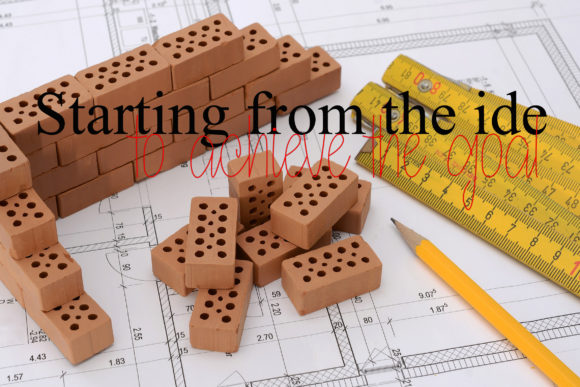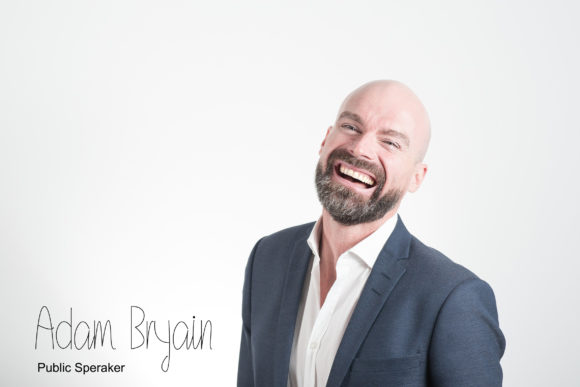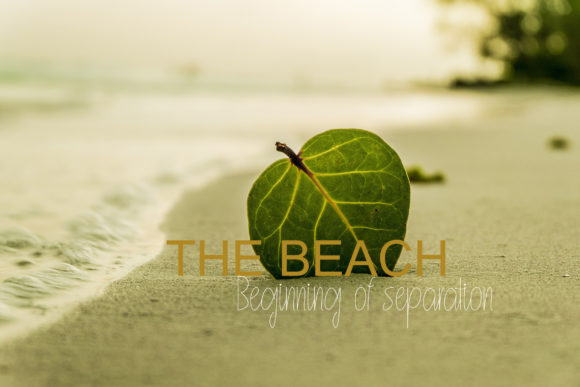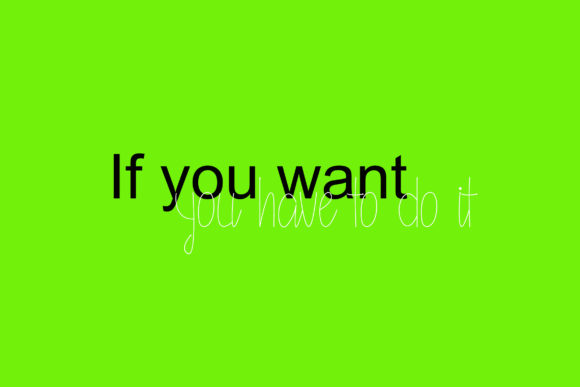
Introduction to Jeconia Font
As a designer, there’s nothing quite like that moment when a project starts to come together – the spark of creativity ignites, and you know you’re onto something special. For me, it was when I stumbled upon the Jeconia Font, a beautiful handwritten font that added that perfect touch of elegance to my design. Its high-quality lines and subtle flair made my creative project stand out in a way I never thought possible.
What makes Jeconia Font so valuable for designers like you and me is its versatility. Whether you’re creating a logo, book cover, invitation, or any other design, this font is the perfect resource to add that personal touch. With a transparent background, you can easily integrate it into any design, and with a free download available, you can start experimenting with it right away.
Key Features of Jeconia Font
- Unique, modern script font with a transparent background, perfect for adding a touch of elegance to your designs.
- Features a large character set, including uppercase and lowercase letters, numbers, and punctuation marks, making it suitable for a variety of applications.
- Resolution-independent design, ensuring that the font remains crisp and clear at any size or resolution.
- Perfect for use in digital design projects, such as logos, business cards, and social media graphics, as well as print projects like brochures and posters.
Honest Review: Jeconia Font
As a designer, I’m always on the lookout for high-quality design resources to elevate my creative projects. Recently, I stumbled upon the Jeconia Font, which offers a unique blend of elegance and sophistication.
What works well: ✨ The Jeconia Font features a beautiful, hand-drawn style that’s perfect for adding a touch of whimsy to your designs. The font is also highly customizable, making it easy to adjust the size, color, and style to suit your needs. The transparent background option is a great feature, allowing you to easily layer the font over images or other design elements.
- Unique, hand-drawn style
Limitations: ⚠️ While the Jeconia Font is a great addition to any design library, it may not be suitable for all types of projects. The font is quite ornate, so it may not be the best choice for simple, straightforward designs. Additionally, some users may find the font’s complexity to be overwhelming.
Overall, I’m impressed with the Jeconia Font and would recommend it to designers looking for a high-quality, unique font to add some flair to their creative projects.
The Jeconia Font is ideal for use in logos, branding materials, and other design projects that require a high-quality and unique font. It can also be used for creative projects such as infographics, brochures, and posters.